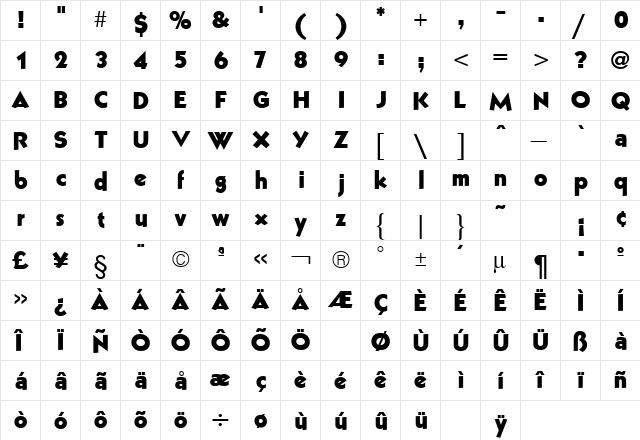
Grizzly Regular
Design Context for Grizzly Typeface
Grizzly takes a measured approach to typography — its balanced proportions and neutral character make it a reliable workhorse for both digital and print work.
Pro Tip: Use Grizzly in both headline and body roles to test its range before committing to a single application.